A Second Chance for an Old Road-Sign Font
Goodbye to Clearview, hello (again) to Highway Gothic.
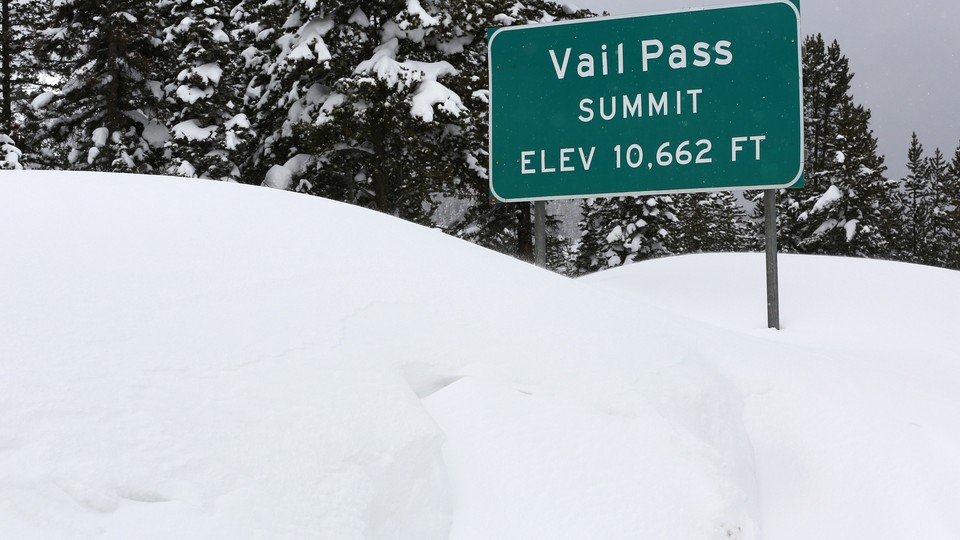
In a notice posted in the Federal Register on Monday, the U.S. Federal Highway Administration announced a small change that has huge implications for the nation. The agency terminated an order it had issued back in 2004 approving the use of a new font in highway signs. Now those signs are going to change. Again.
By ending its “Interim Approval for Use of Clearview Font for Positive Contrast Legends on Guide Signs,” the FHWA reversed its position on Clearview, a font developed to improve highway-sign legibility on the roads. In 2004, the agency embraced Clearview, based on studies that appeared to demonstrate its superiority, especially in nighttime driving tests.
Just 12 years later, the FHWA is changing course: Highway Gothic is the only font for U.S. highways going forward.
The announcement took Donald Meeker by complete surprise. Meeker is one of the designers responsible for the Clearview font (along with James Montalbano). His firm, Meeker and Associates, which specializes in environmental graphic design, tested Clearview with the Pennsylvania Transportation Institute at Penn State University over the course of the 1990s.
“It’s unfortunate. It’s a shock. This is a big deal,” Meeker says.
Clearview was made to improve upon its predecessor, a 1940s font called Highway Gothic, at a time when an aging Baby Boomer generation meant lots of older drivers on the road. Certain letters appeared to pose visibility problems, especially those with tight interstices (or internal spacing)—namely lowercase e, a, and s. At night, any of these reflective letters might appear to be a lowercase o in the glare of headlights.
By opening up these letterforms, and mixing lowercase and uppercase styles, Clearview aimed to improve how these reflective highway signs read.
“Helen Keller can tell you from the grave that Clearview looks better,” Meeker says.
At the time, the FHWA agreed. In its 2004 approval memo, the agency noted that Clearview boosted highway-sign legibility for drivers traveling at 45 miles per hour by 80 feet of reading distance—or 1.2 seconds of bonus reading time. Another broad study, performed by the Texas Transportation Institute at Texas A&M University, backed up the results of the Penn State study. Meeker and his colleagues outlined their findings in the Transportation Research Record.
“What all of the research has shown is that there is a lot about users’ reactions to different types of fonts on wayfinding (and regulatory and warning) signs that we still don’t understand,” says Martin Pietrucha, one of the researchers at the Pennsylvania Transportation Institute who worked on the testing and development of Clearview. “Shutting down any future work in this area sets in stone the idea that any improvement in this area is not possible, or that seeking improvements in this area is not worth the effort. I respectfully disagree.”
From the start, Clearview was greeted as a civic, social, and design success. Around 30 states have adopted the font, making it arguably the dominant design paradigm on U.S. roads. Print magazine called it one of the 10 typefaces of the decade in 2010. The Clearview typeface family was the first digital font ever acquired by the Cooper-Hewitt, Smithsonian Design Museum. People behind the font spoke about it with swagger.
Was everyone wrong? The FHWA explains its about-face on Clearview by pointing to further research after 2004. The boost in legibility, for example, could be attributed to simply replacing older signs with newer signs.
“After more than a decade of analysis, we learned—among other things—that Clearview actually compromises the legibility of signs in negative-contrast color orientations, such as those with black letters on white or yellow backgrounds like Speed Limit and Warning signs,” says Doug Hecox, a FHWA spokesperson, in an email.
In fact, the FHWA stopped granting approval to use Clearview at least two years ago. In an April 2014 letter denying a request from transportation officials in Grays Harbor County, Washington, to begin using Clearview, the director for the FHWA Office of Transportation Operations, Mark Kehrli, listed other reasons for rejecting Clearview.
This window into the approvals process reveals another problem that may have doomed Clearview: The font was never a mandate, only an alternative. As a result, some places have inconsistent usage; local jurisdictions may be using the font in states that are not. Font forum posters report seeing Clearview in Orange County, while California (which received permission to pursue Clearview) still abides by Highway Gothic.
Local and state governments that have taken up Clearview don’t have to remove signs that feature this font. But as these signs are eventually replaced, the new ones that take their place will be throwback Highway Gothic signs.
The alternative is a design that hasn’t changed substantially since the 1960s.
“This is a burr in somebody’s saddle,” says Meeker, who adds that he’s preparing a rebuttal to the news. “They don’t understand design.”